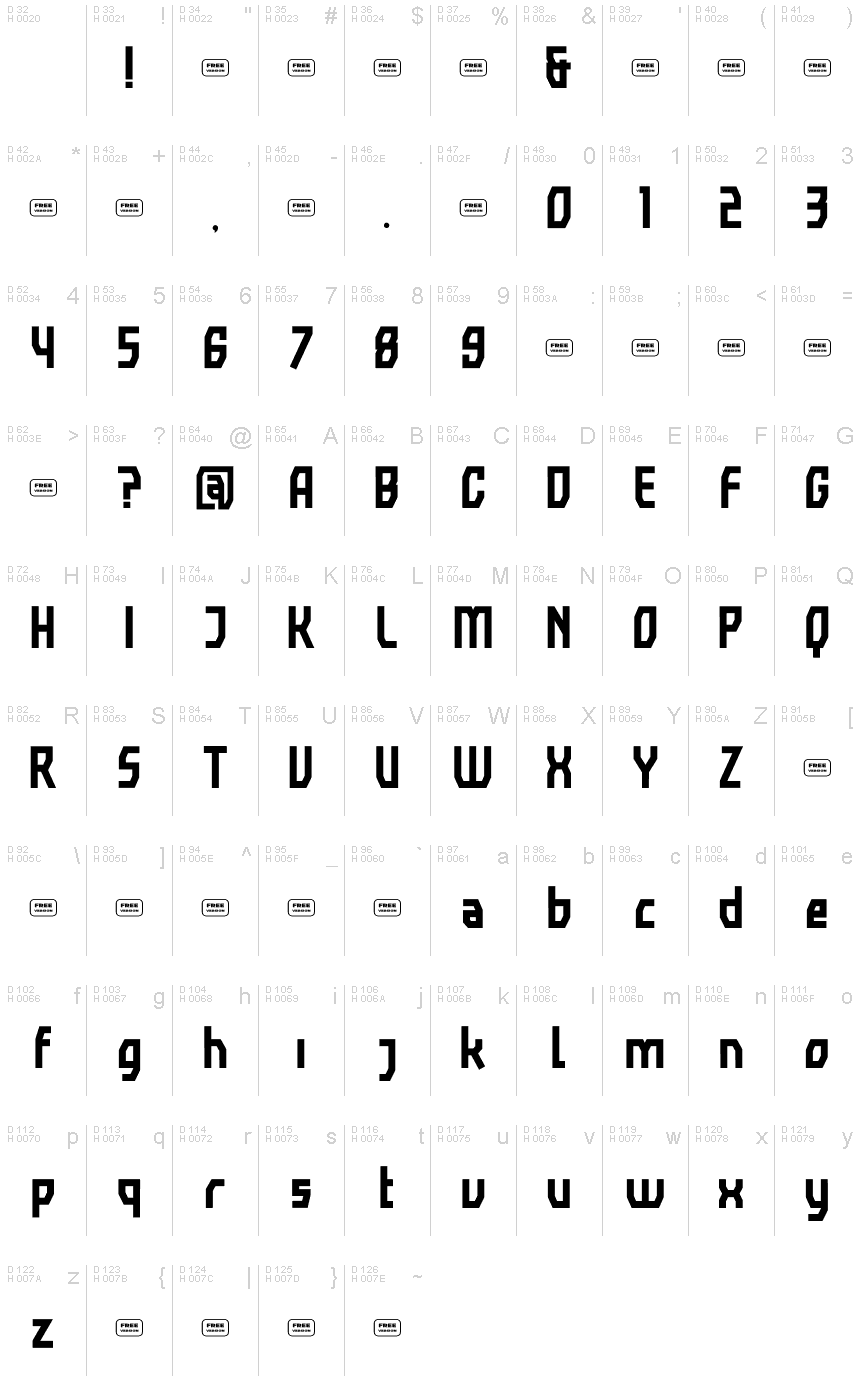
Exton Free Trial
Exton is a sharp, angular, futuristic font in a robot-like style designed by Typefactory.
Perfect for sci-fi themes and space adventures!
It will look awesome on any T-shirt, print, or restaurant brand!